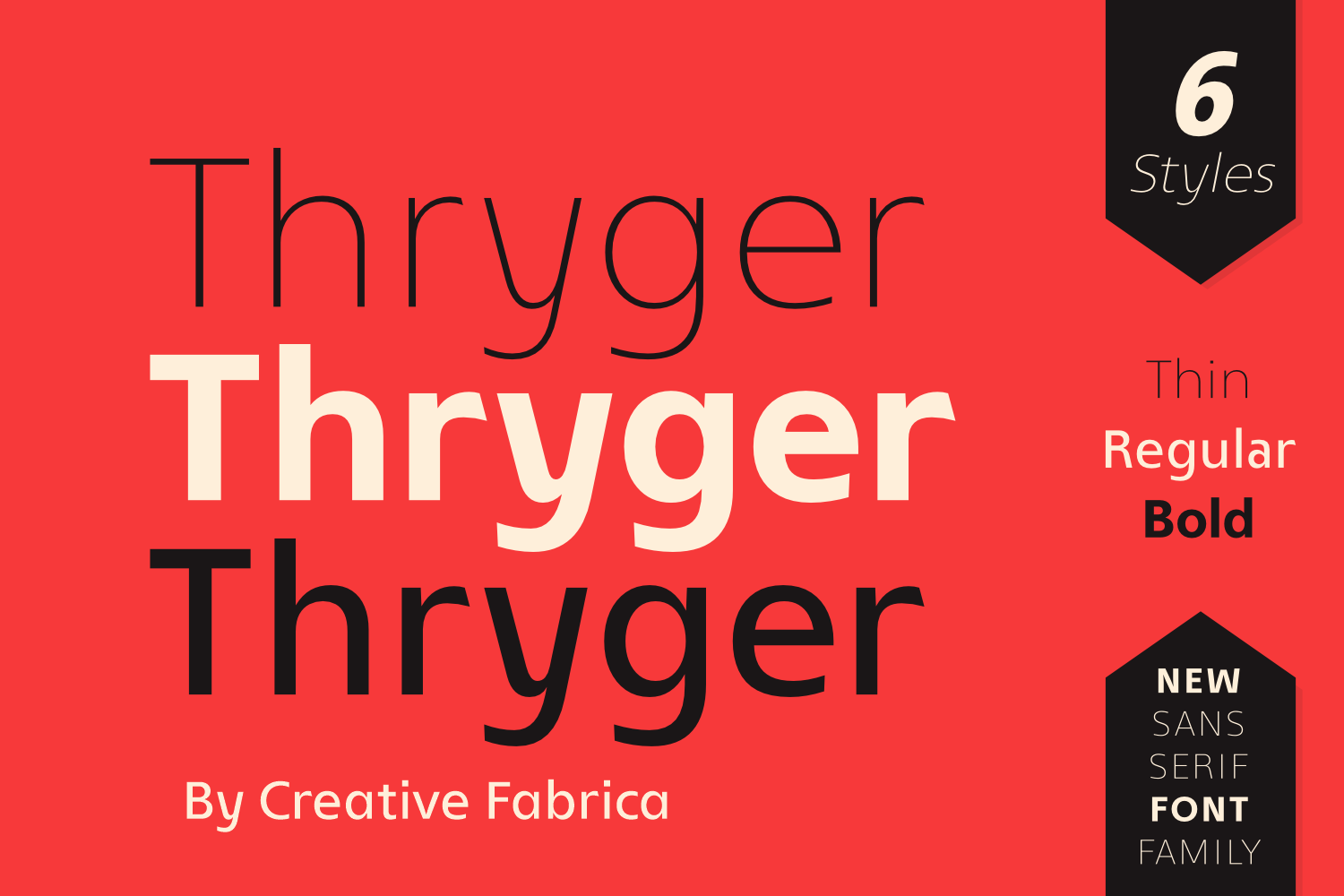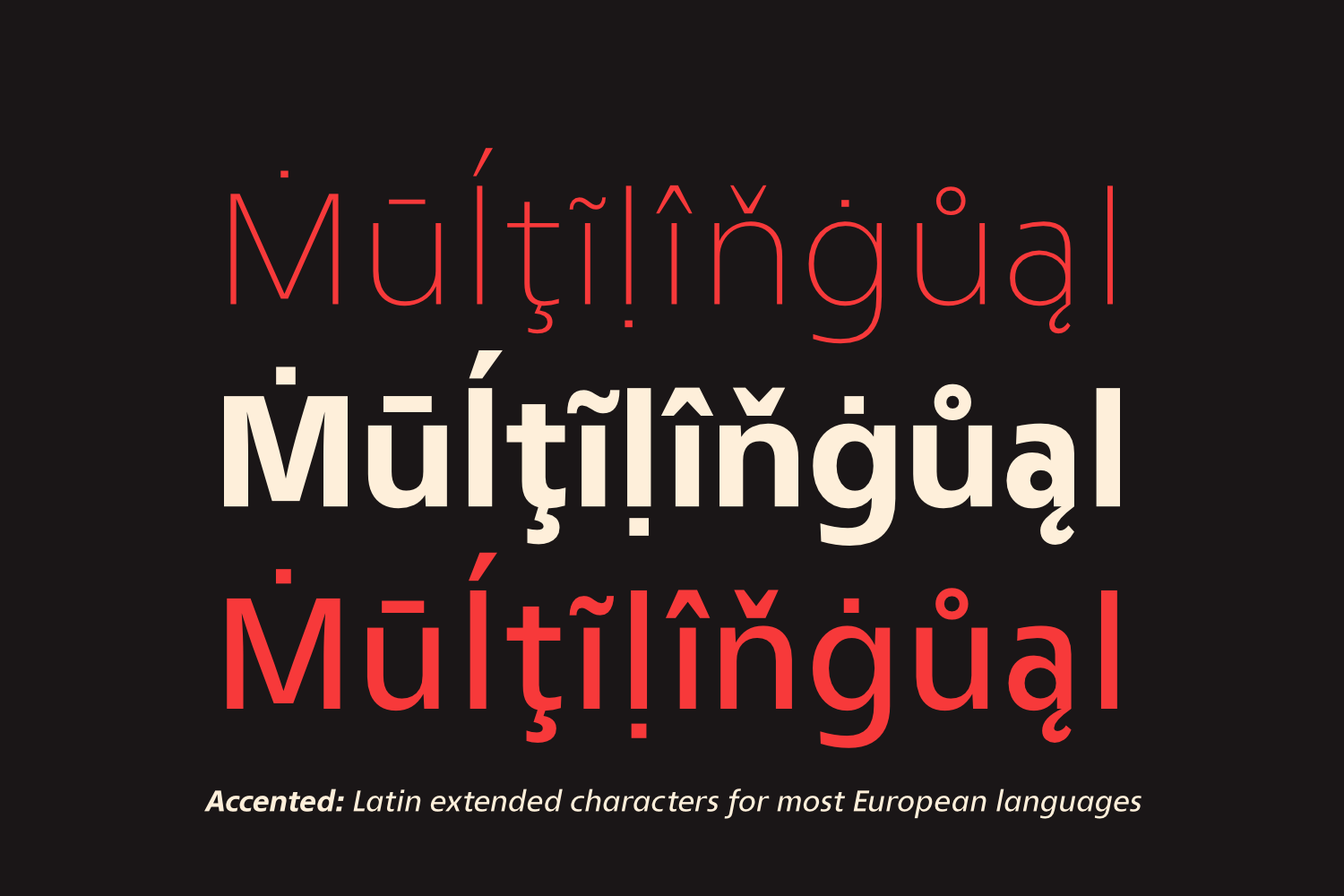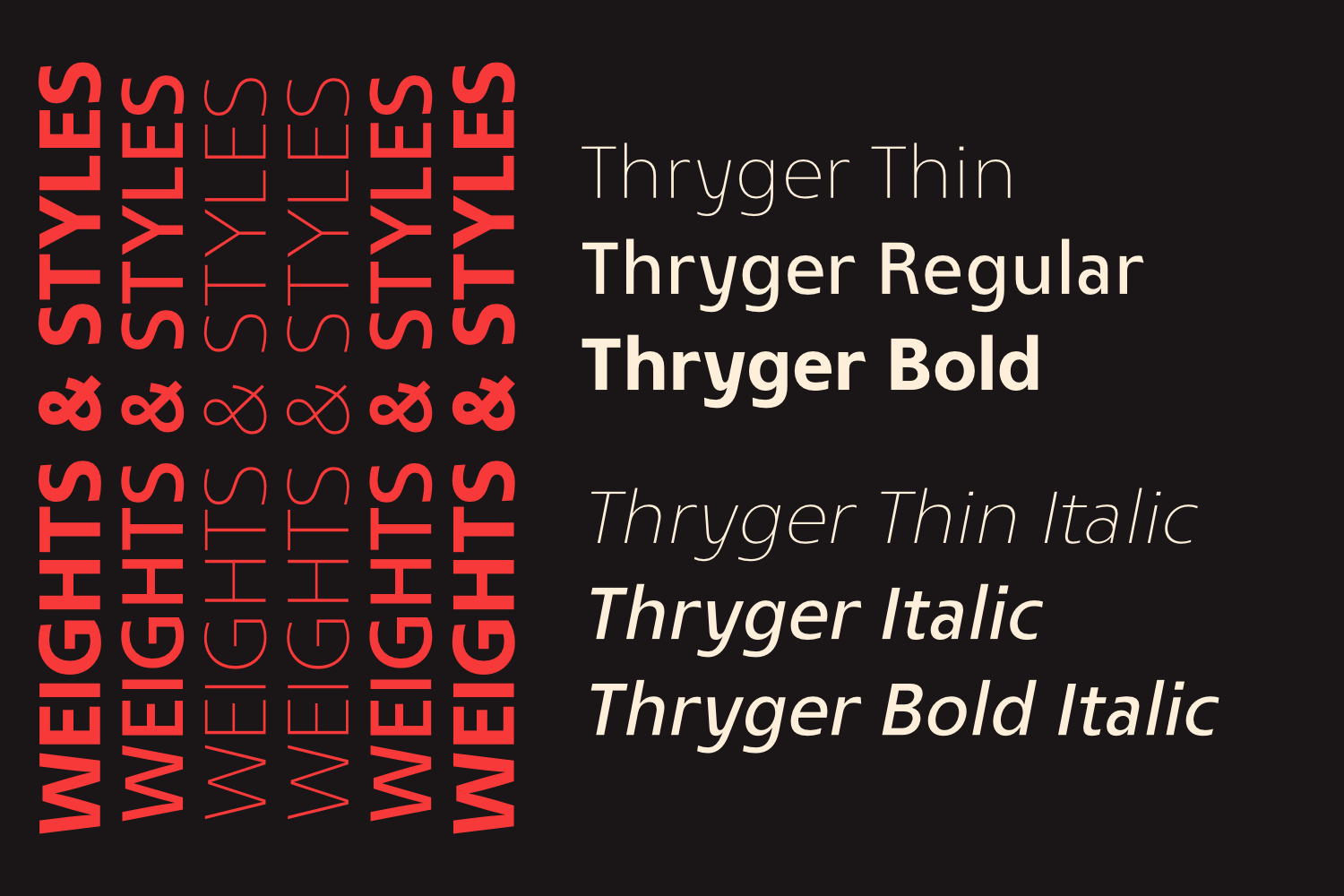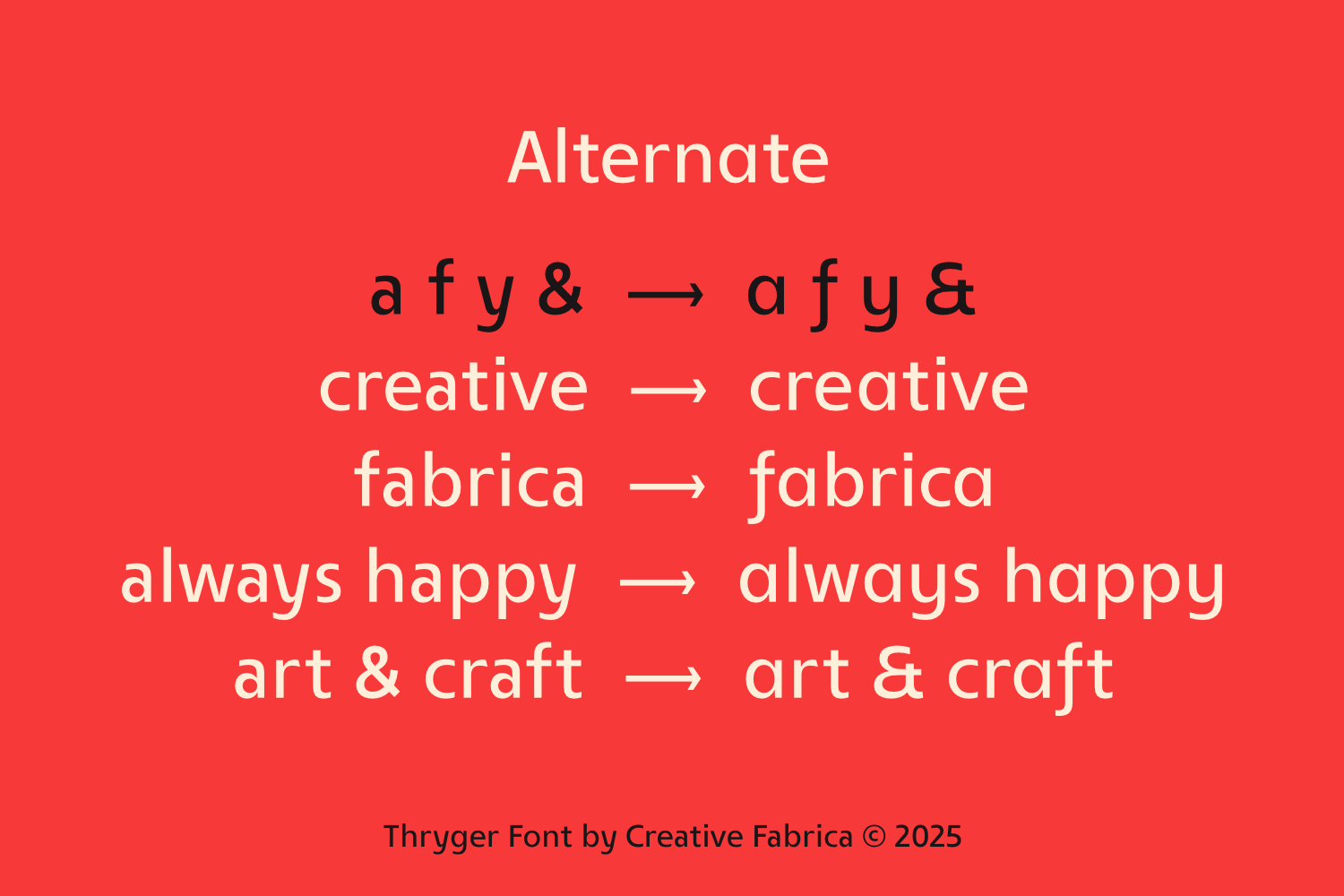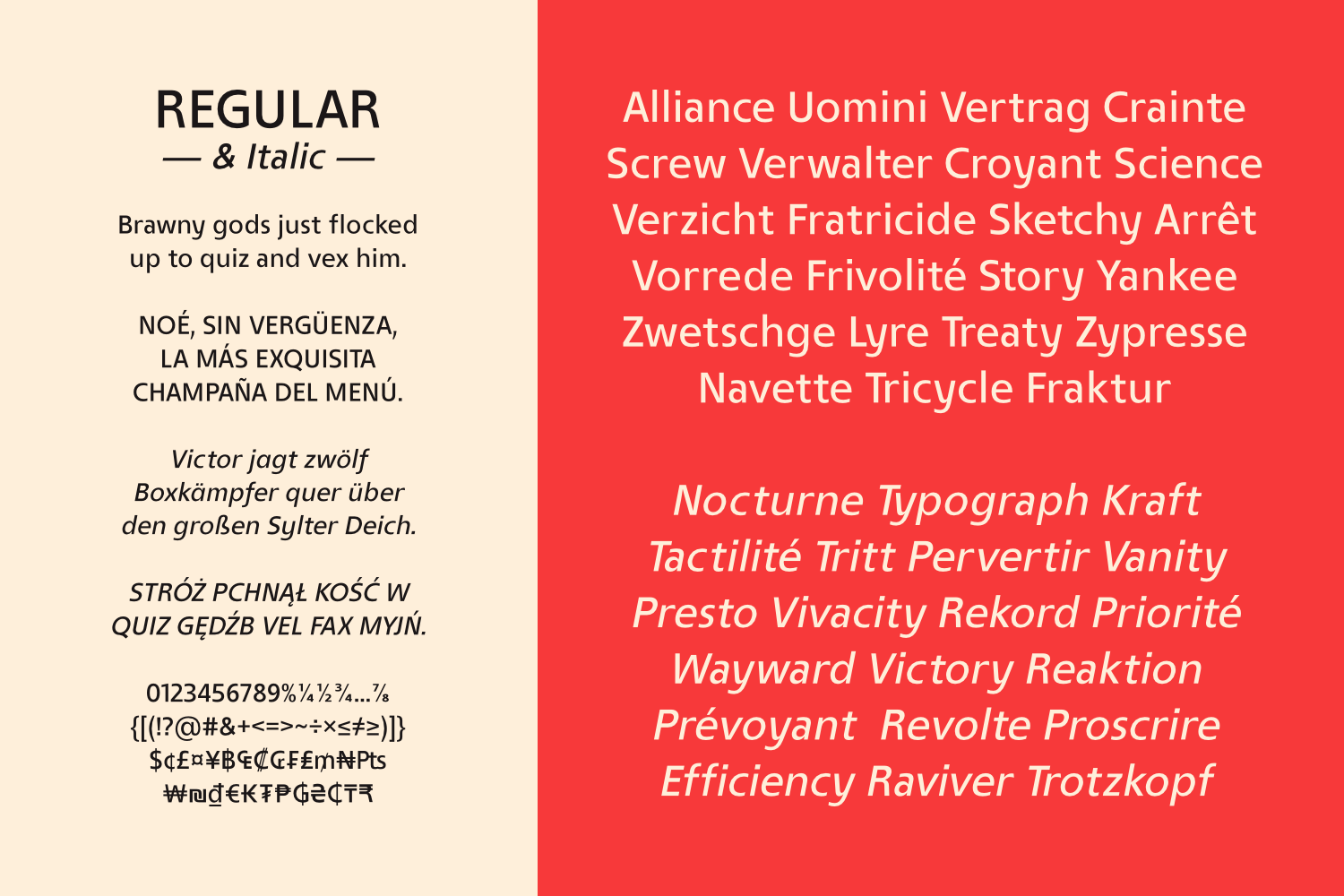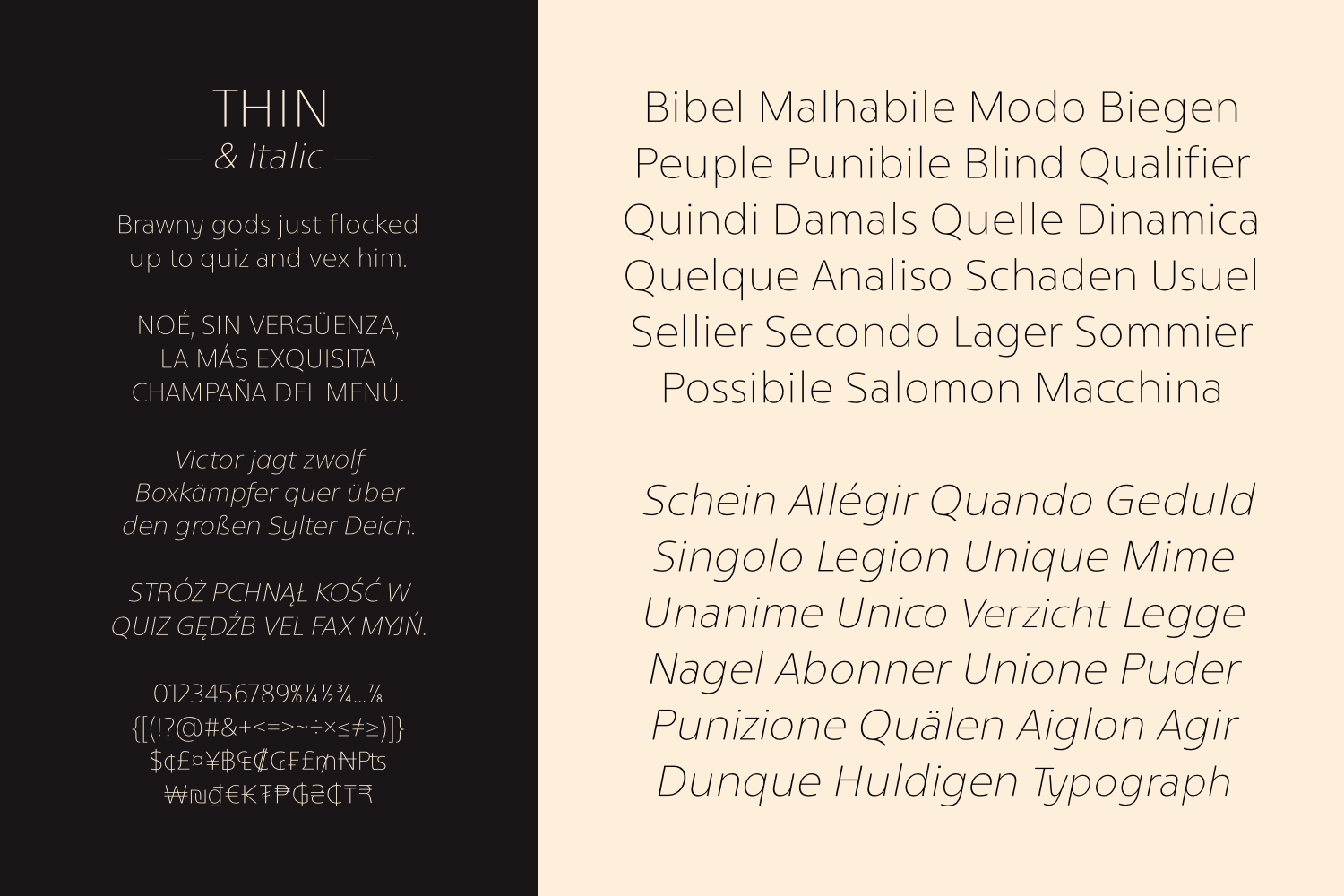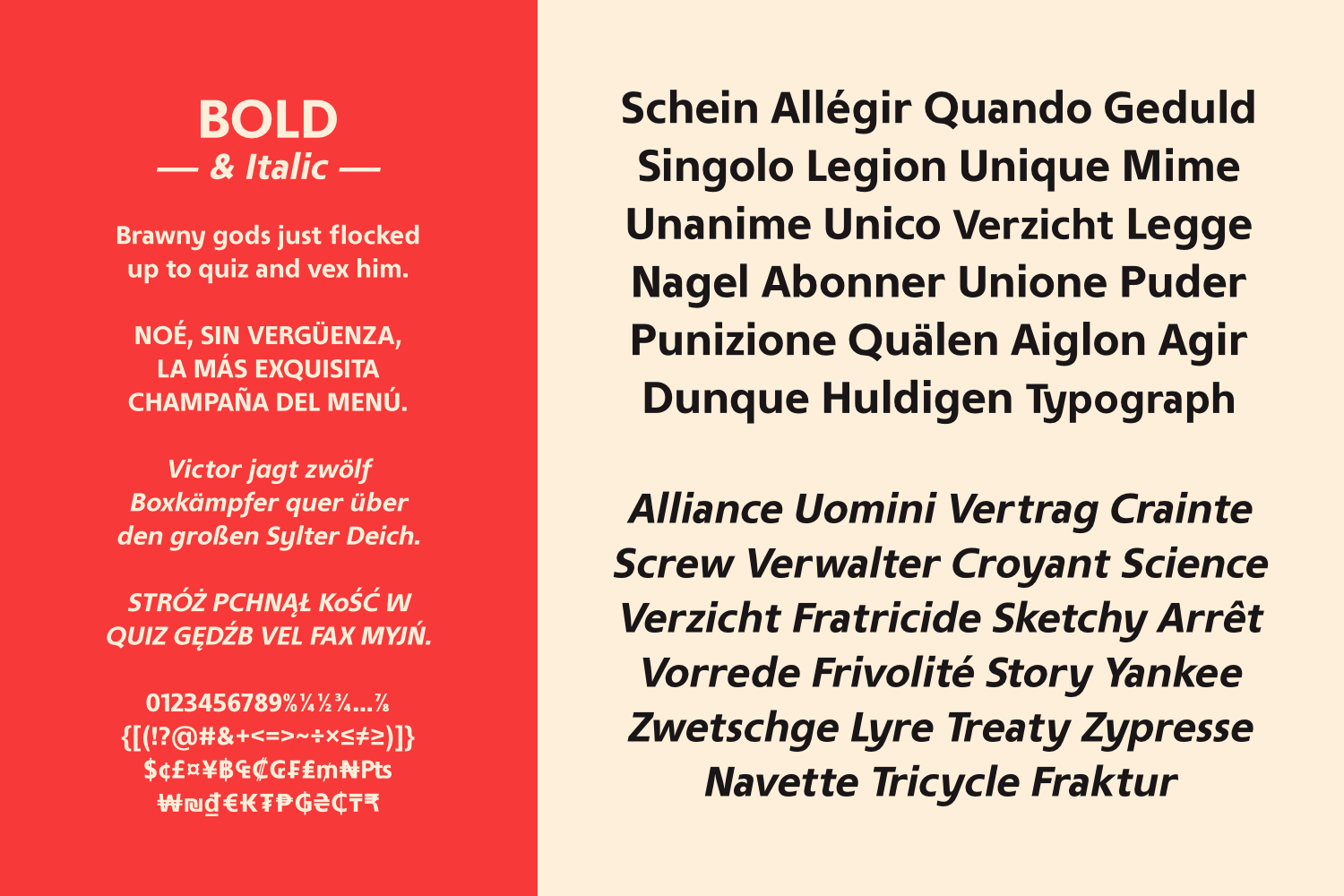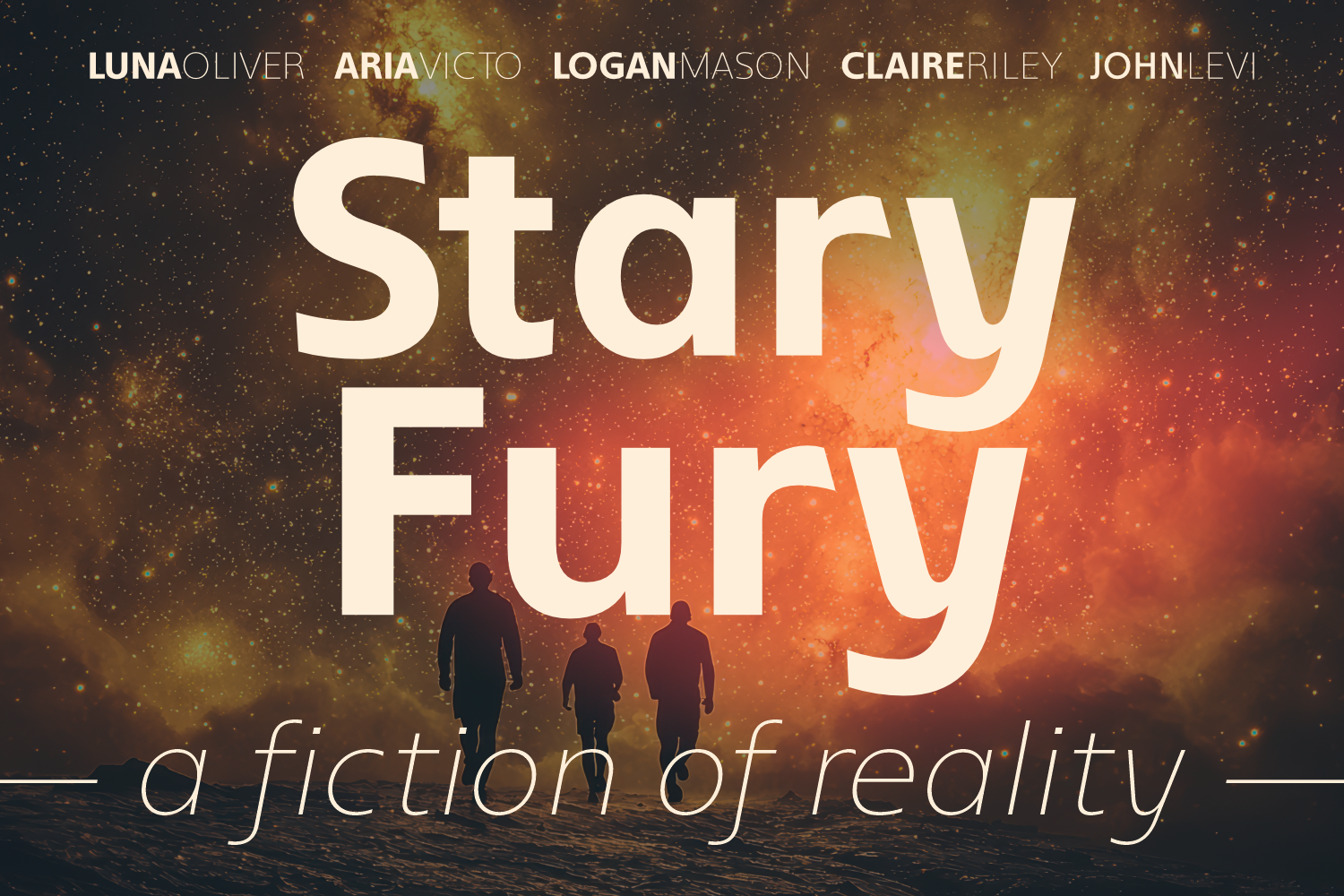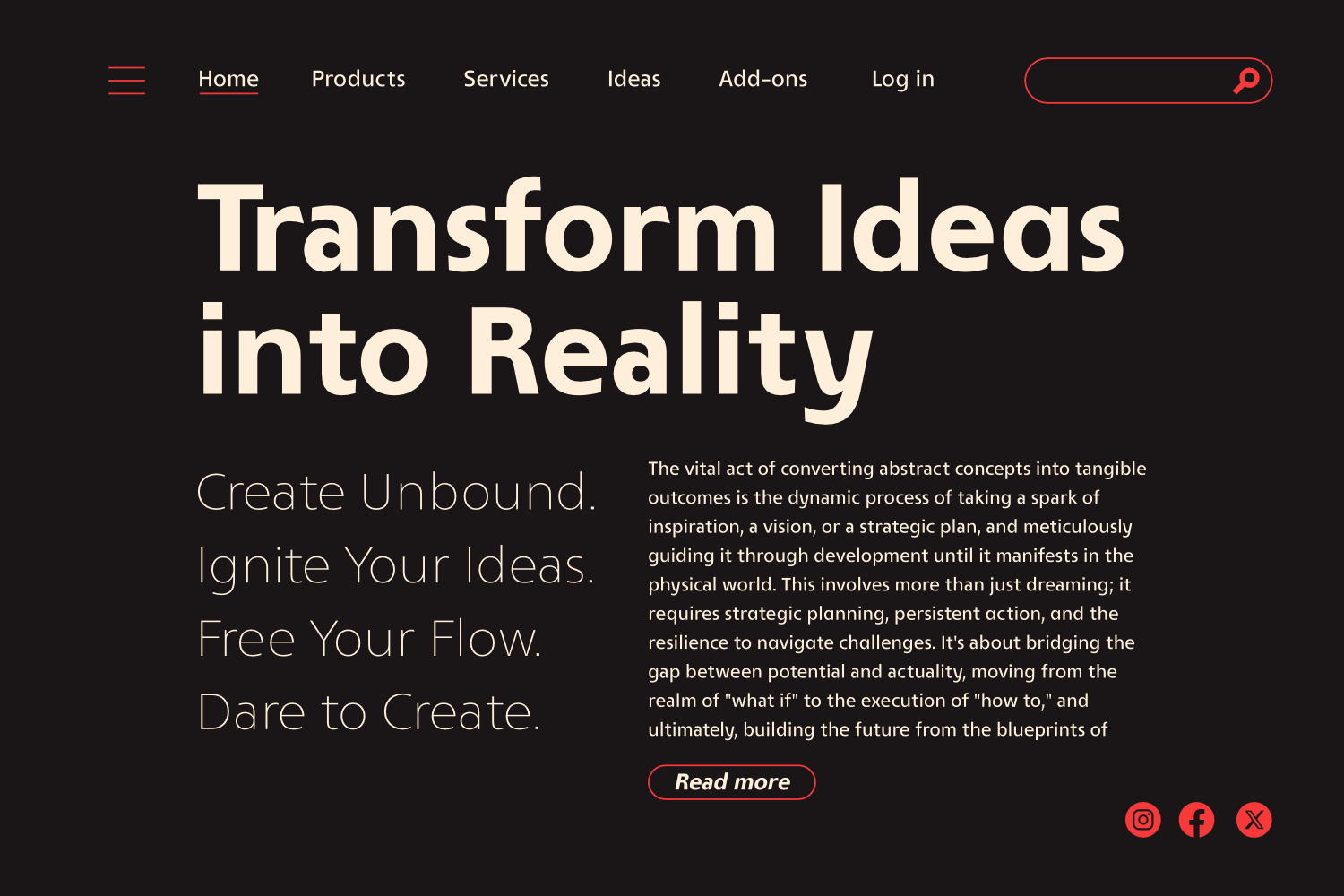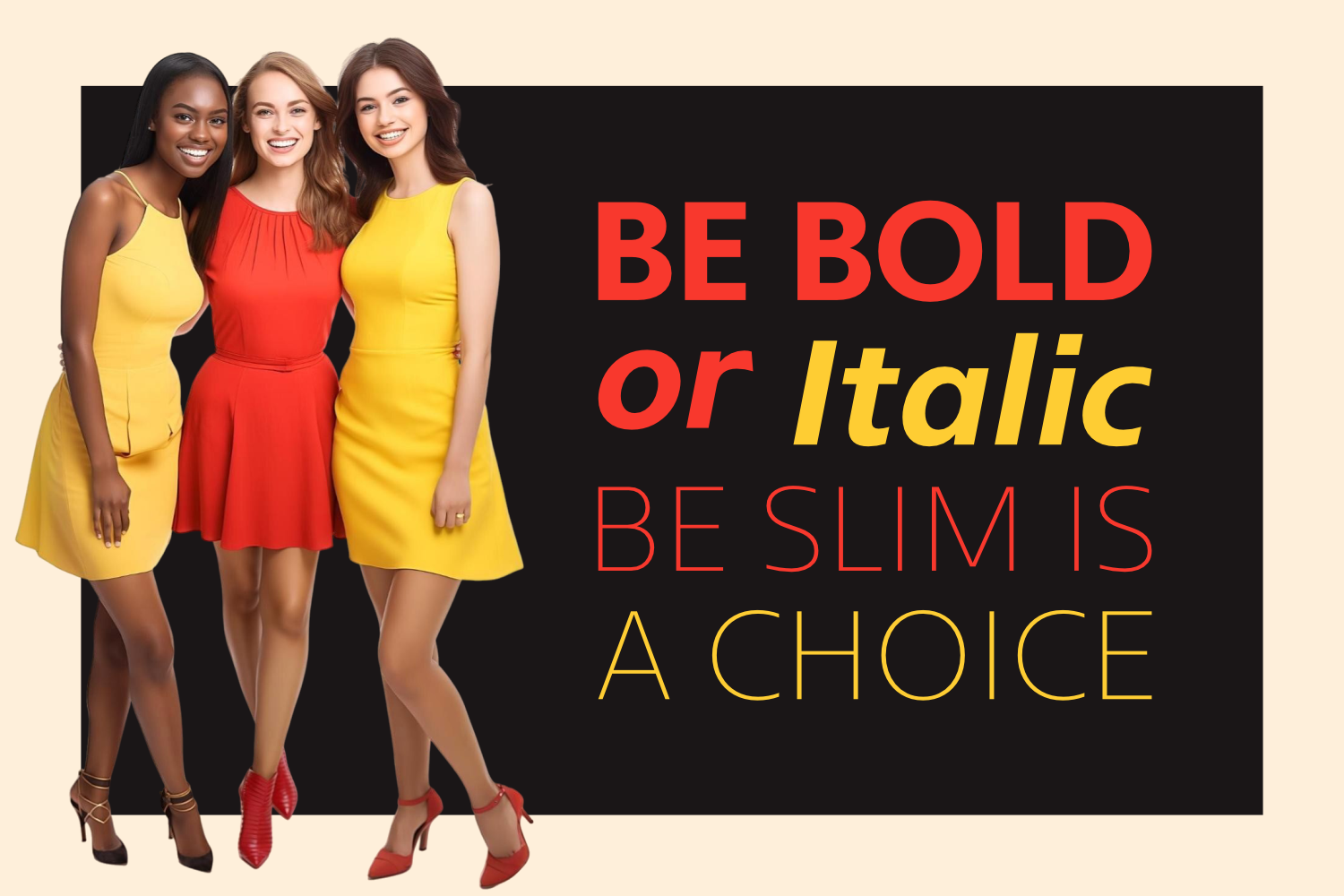
Thryger is a sleek and modern sans-serif font inspired by the timeless elegance of Frutiger. Designed for versatility, Thryger comes in six styles, including Thin, Regular, Bold, and their italic counterparts. Its clean lines and balanced letterforms make it perfect for branding, editorial design, web interfaces, and signage. Whether you need a refined touch for body text or a bold statement for headlines, Thryger delivers readability and sophistication in every weight.